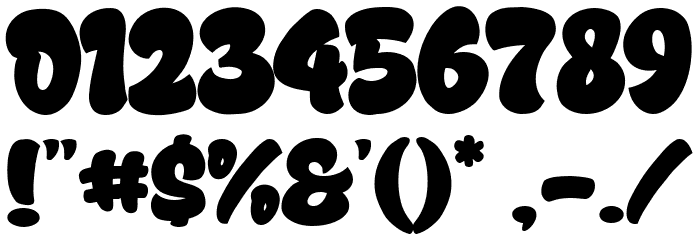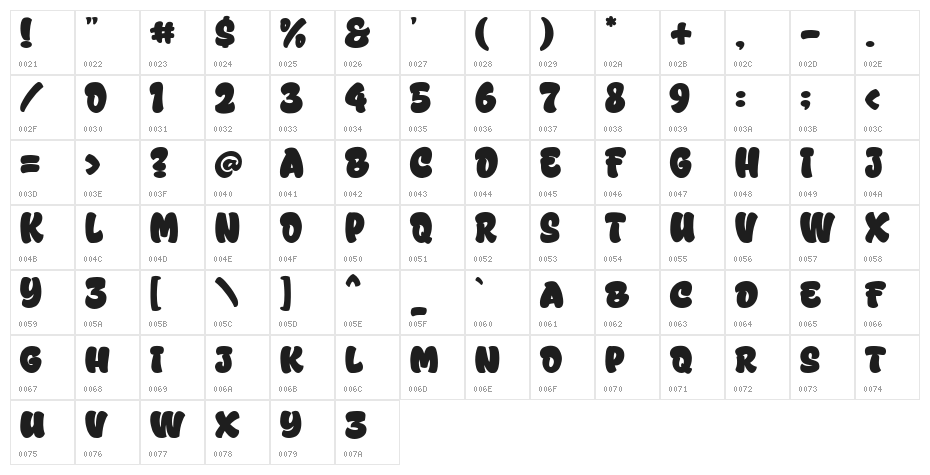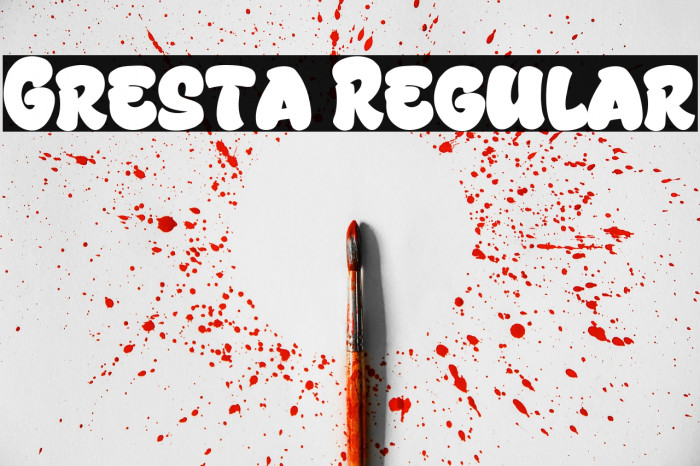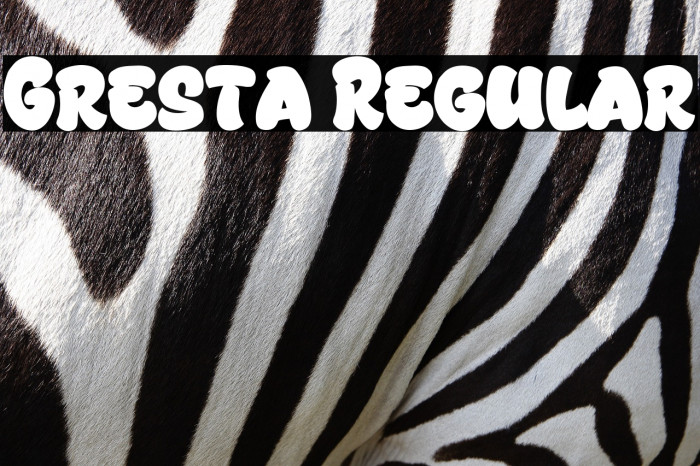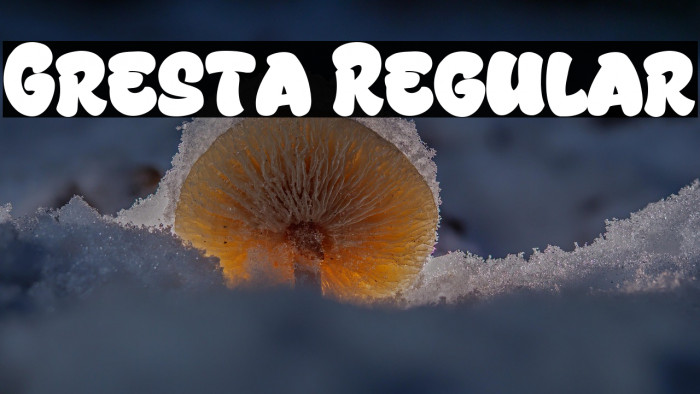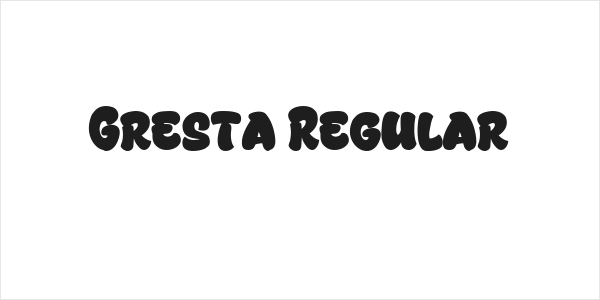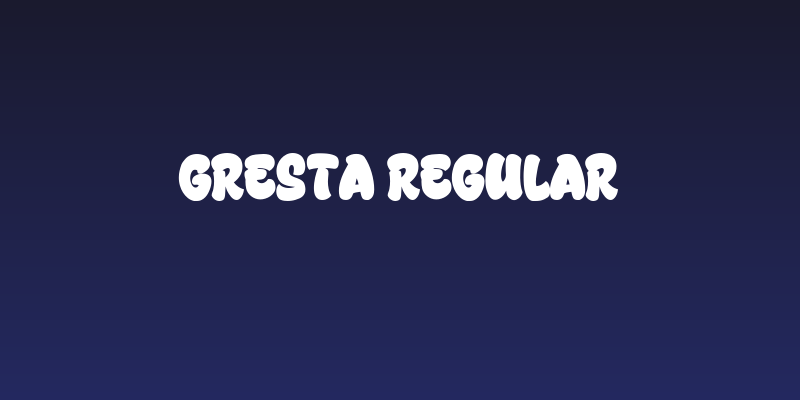
Gresta Regular Font
Gresta Regular Description
This font features bold, rounded characters with a playful and energetic style. The letters are thick and have a consistent weight throughout, giving them a strong presence. The rounded edges and bubbly appearance make it ideal for designs that require a fun and approachable look. The numbers and special characters maintain the same bold and rounded characteristics, ensuring a cohesive appearance across all elements. The font's style is reminiscent of retro and playful themes, making it suitable for projects that aim to convey a sense of joy and creativity.
| Overall Style | Playful, Retro |
| Proposed Projects | Ideal for children's books, playful branding, retro-themed posters, and fun social media graphics. |